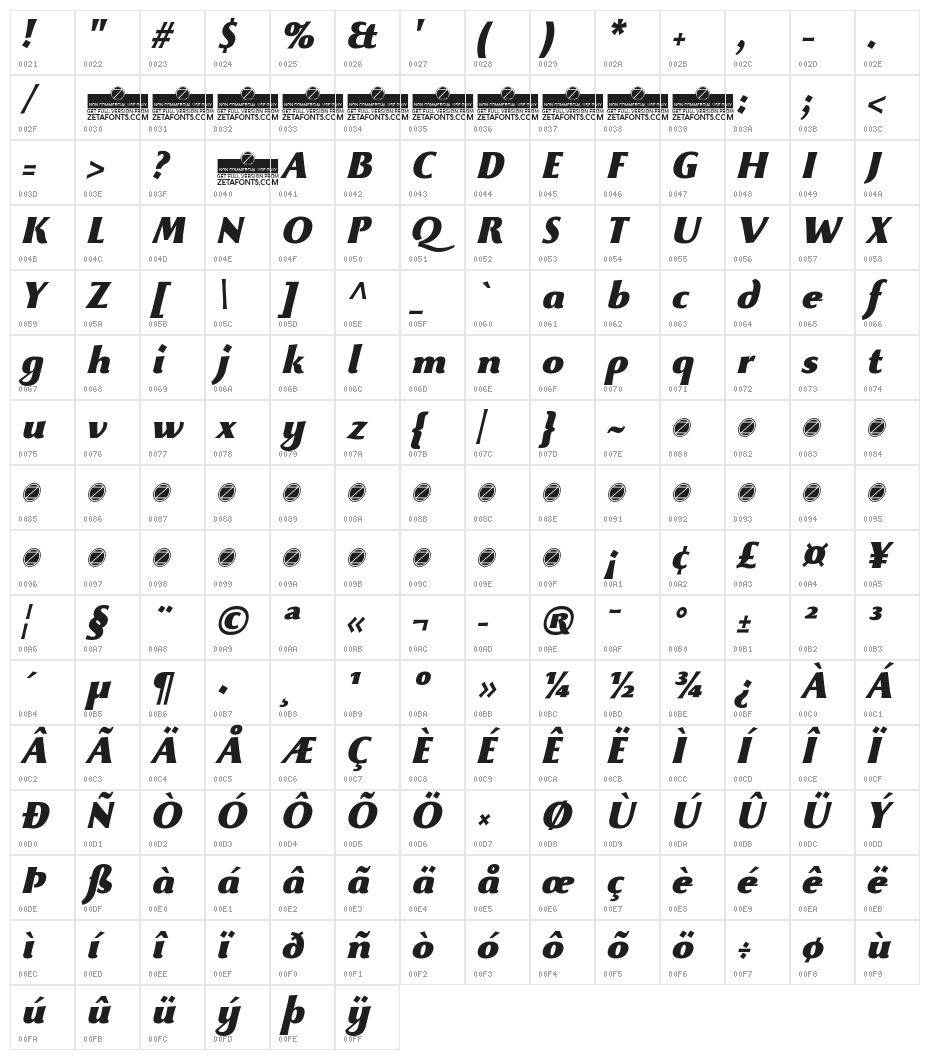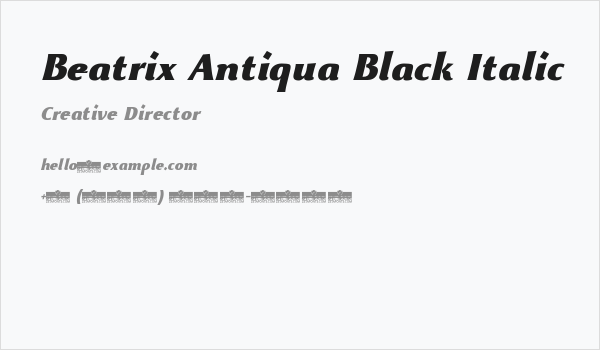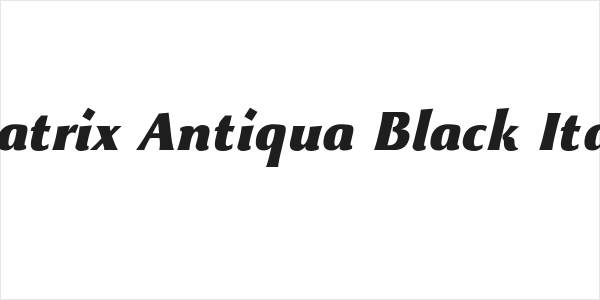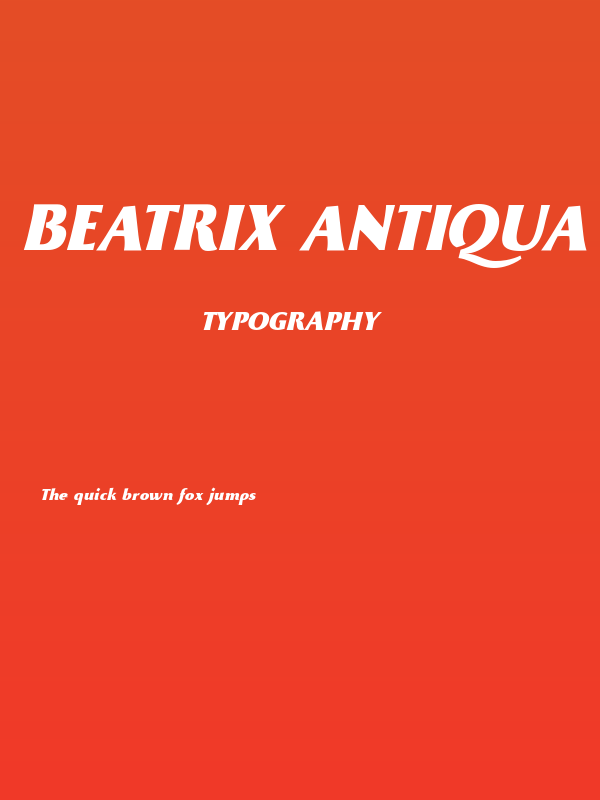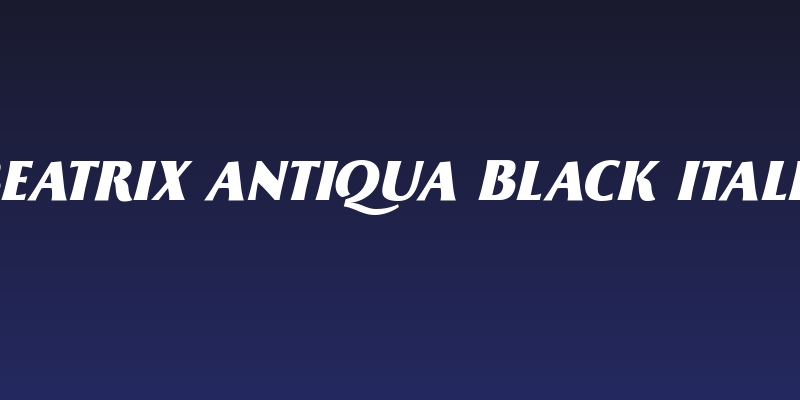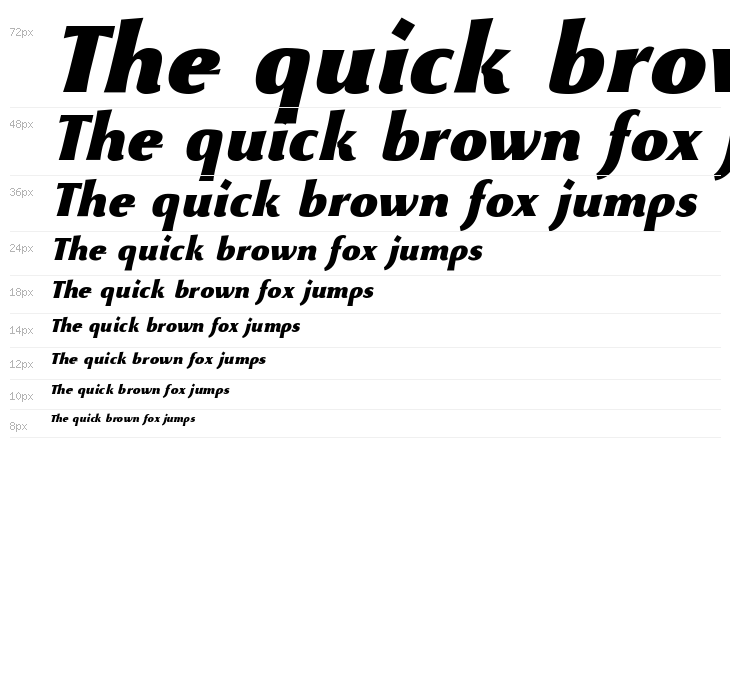
Beatrix Antiqua Black Italic Font
Beatrix Antiqua Black Italic Description
This font exhibits a bold and dynamic style with a pronounced italic slant, giving it a sense of movement and energy. The characters are thick and robust, with a high contrast between the thick and thin strokes, enhancing its dramatic appearance. The serifs are sharp and angular, adding a touch of elegance and sophistication. The overall design is modern yet retains a classic feel, making it versatile for various applications. The uppercase letters are particularly striking, with a strong presence, while the lowercase letters maintain readability. The special characters are well-integrated, maintaining the font's bold and italic characteristics.
| Proposed Projects | Ideal for branding, headlines, posters, and editorial design where a bold statement is needed. |